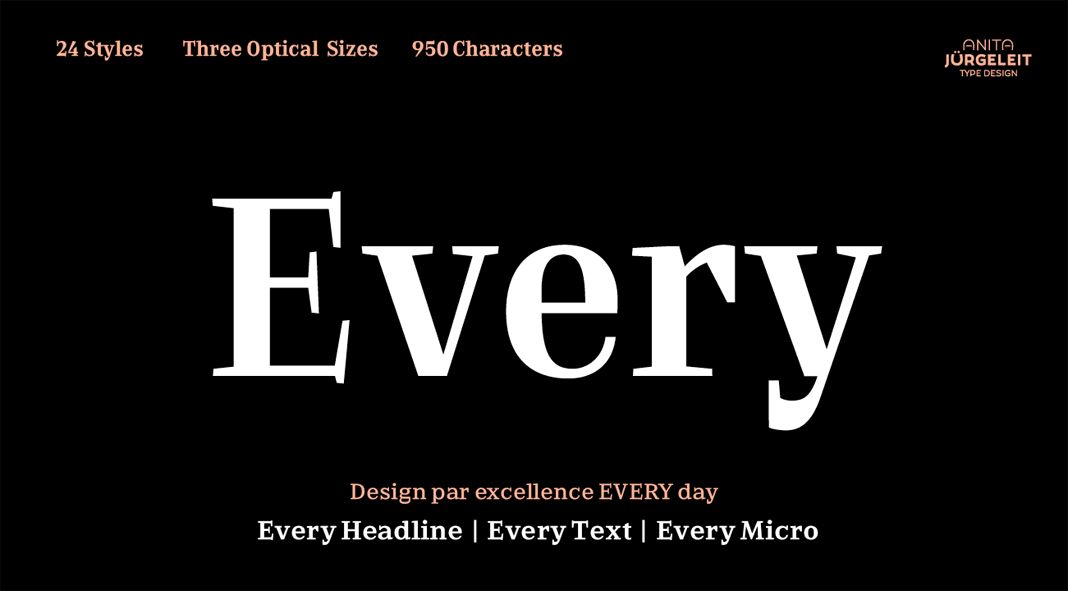
Every, a true workhorse font family designed and published by Anita Jürgeleit.
Designed by German typeface designer Anita Jürgeleit, Every has been created with the aim to produce a font family with numerous typographic features. So let’s talk about the details. This distinctive serif font family comes with 24 styles including three optical weights (Head, Text, and Micro). Equipped with true italics and support for all Latin-based languages, the Every font family consists of 950 characters. Its countless typographic features include old-style figures, lining and tabular figures, subscript and superscript, circled numbers, predefined fractions, discretionary ligatures, an extended currency set with proportional and tabular currencies, and various arrows. With this wide range of typographic features, you can master all your typographic challenges.